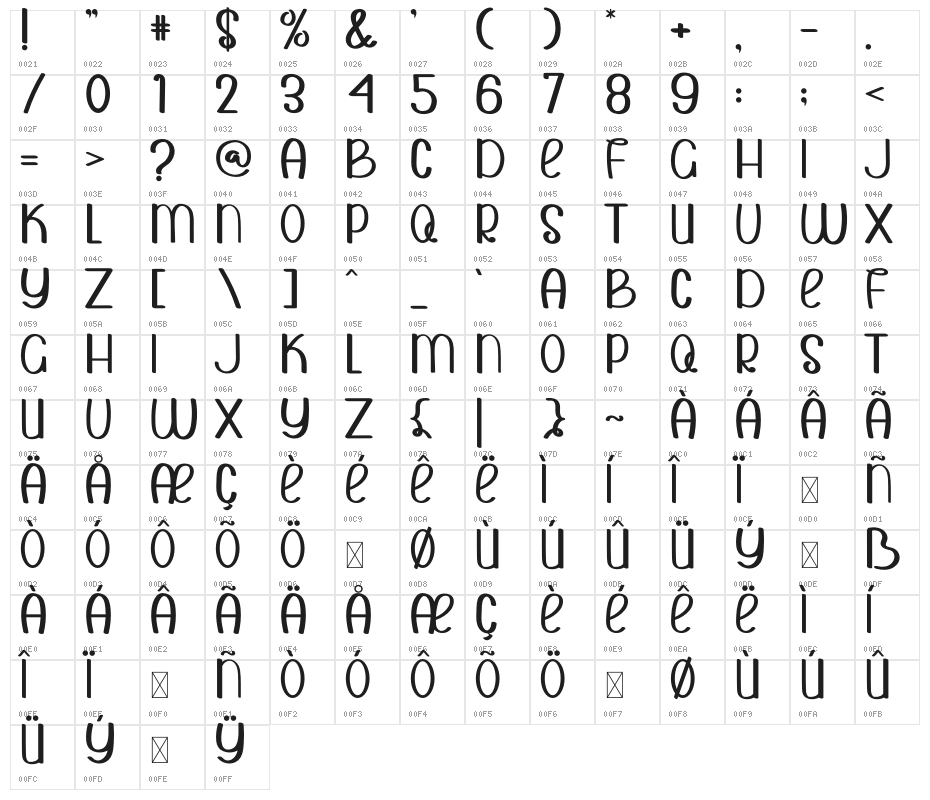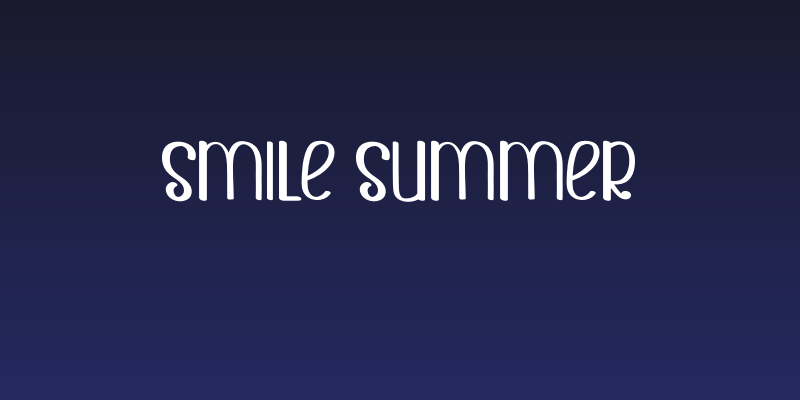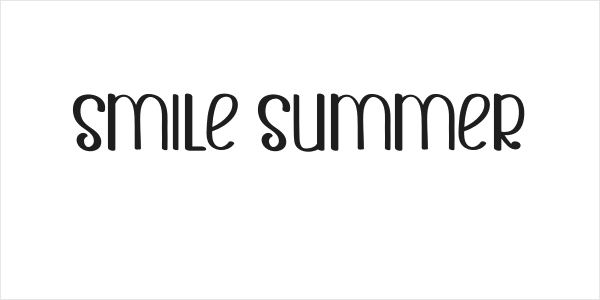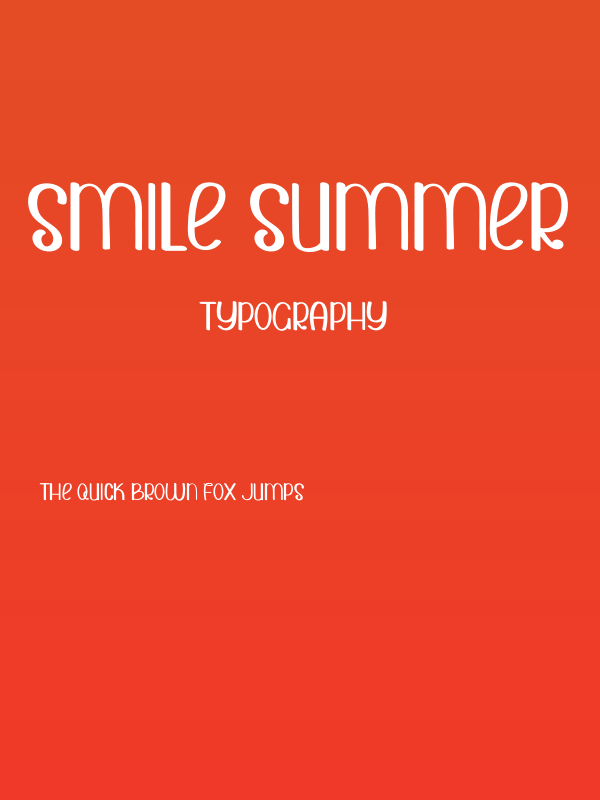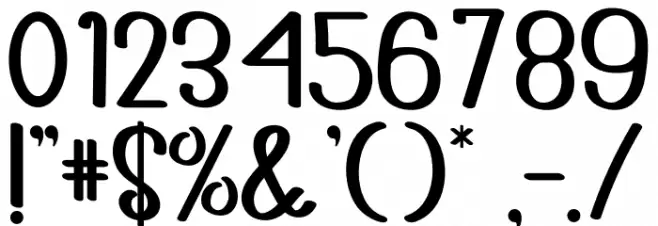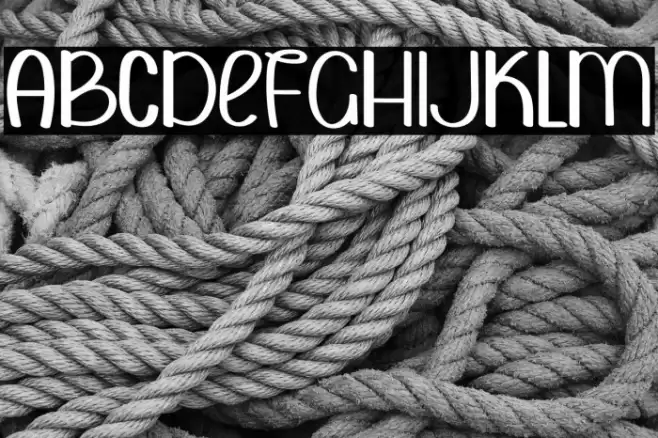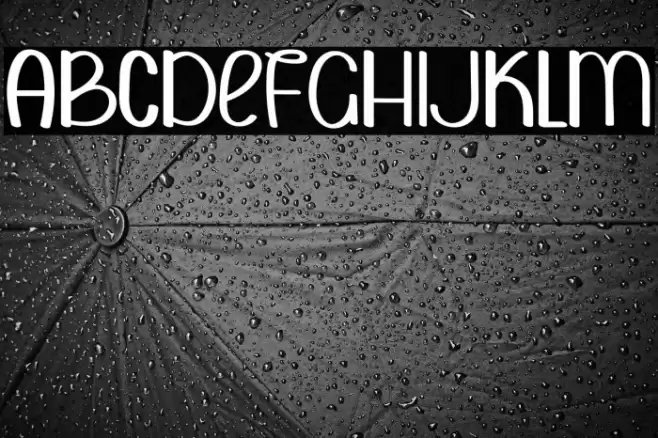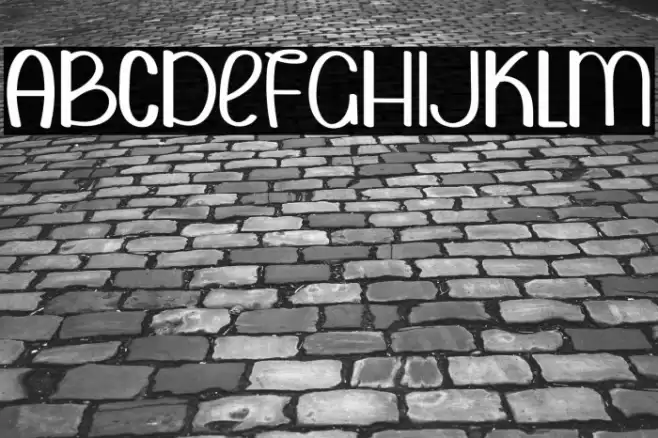
Smile Summer Font
Smile Summer Description
This playful and whimsical font features rounded edges and a slightly condensed form, giving it a friendly and approachable appearance. The characters have a consistent stroke width, contributing to a harmonious and balanced look. The uppercase and lowercase letters maintain a uniform style, with subtle variations that add charm and personality. The numerals are bold and clear, ensuring readability. Special characters are creatively designed, enhancing the font's overall playful aesthetic. This font is perfect for projects that require a fun and inviting tone.